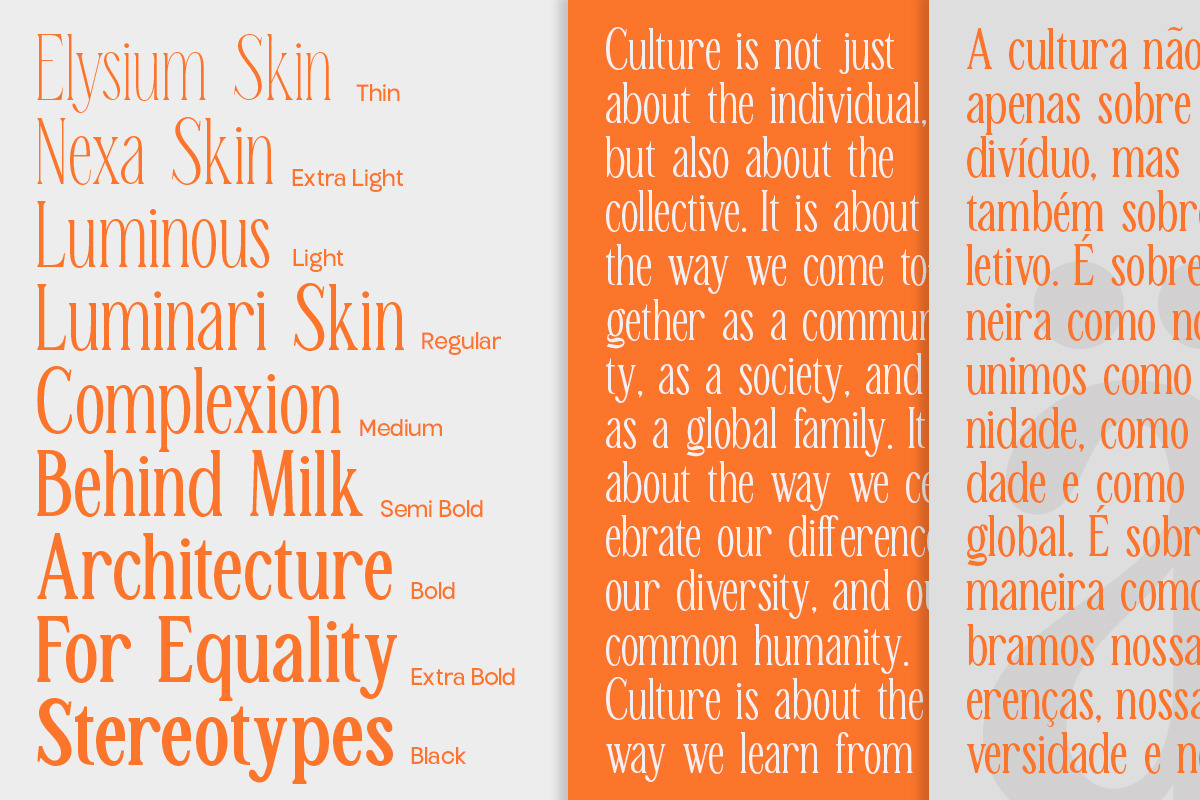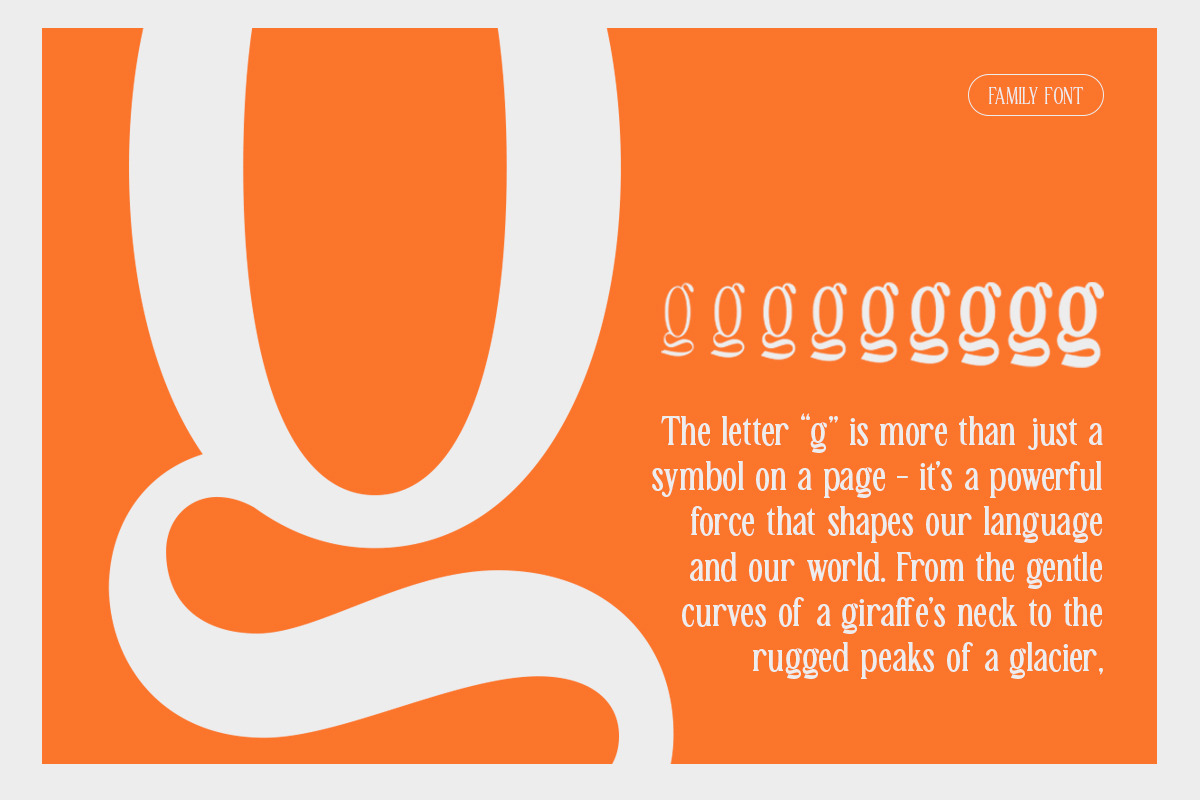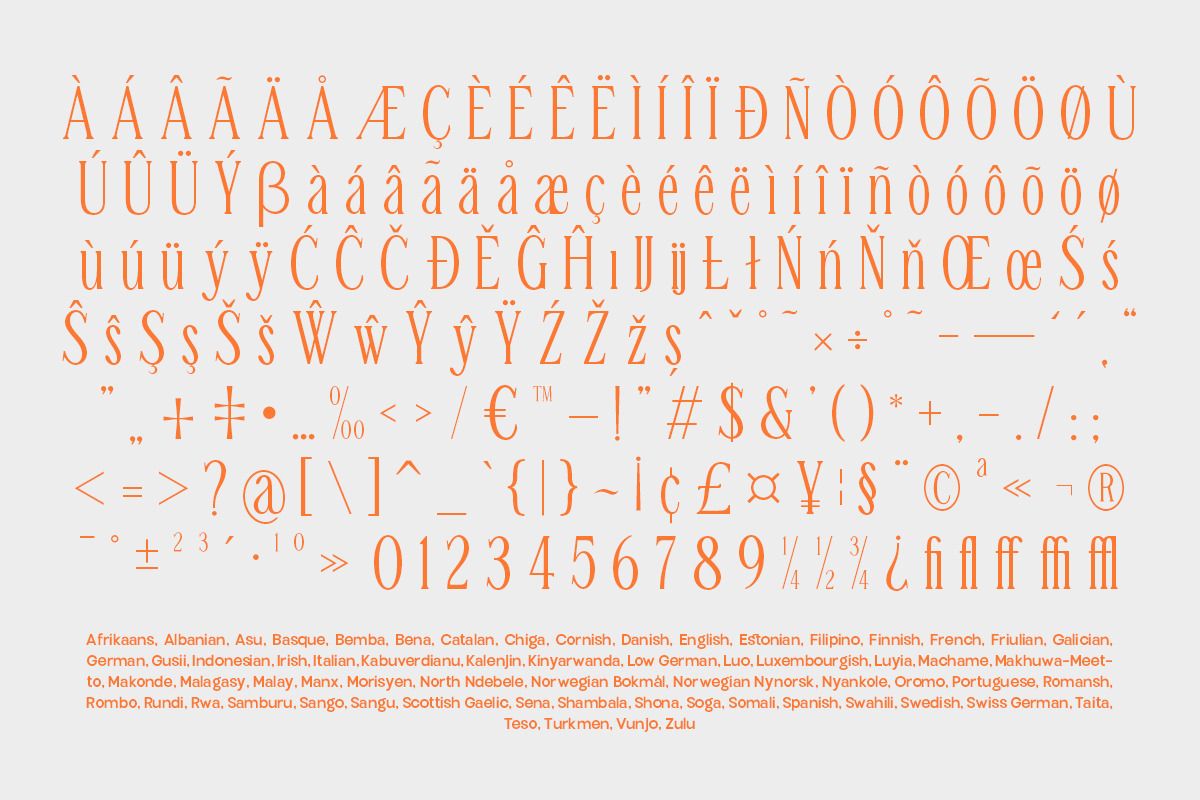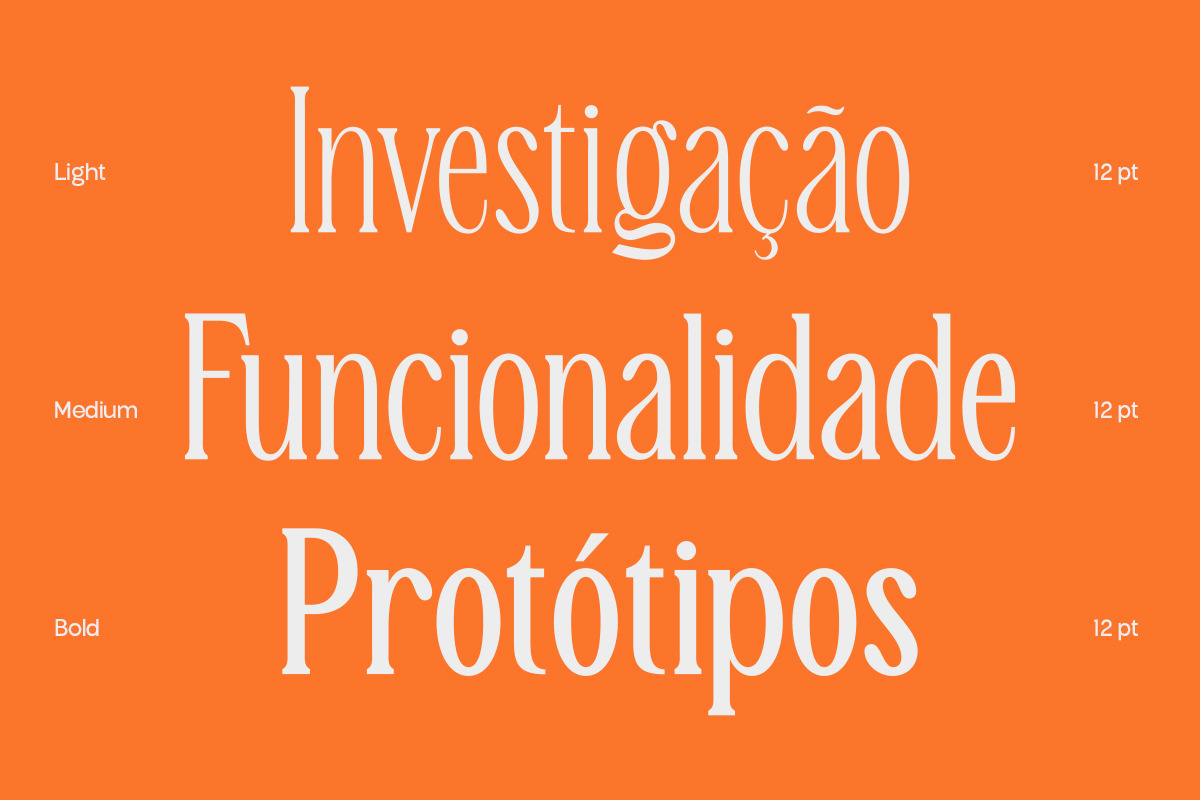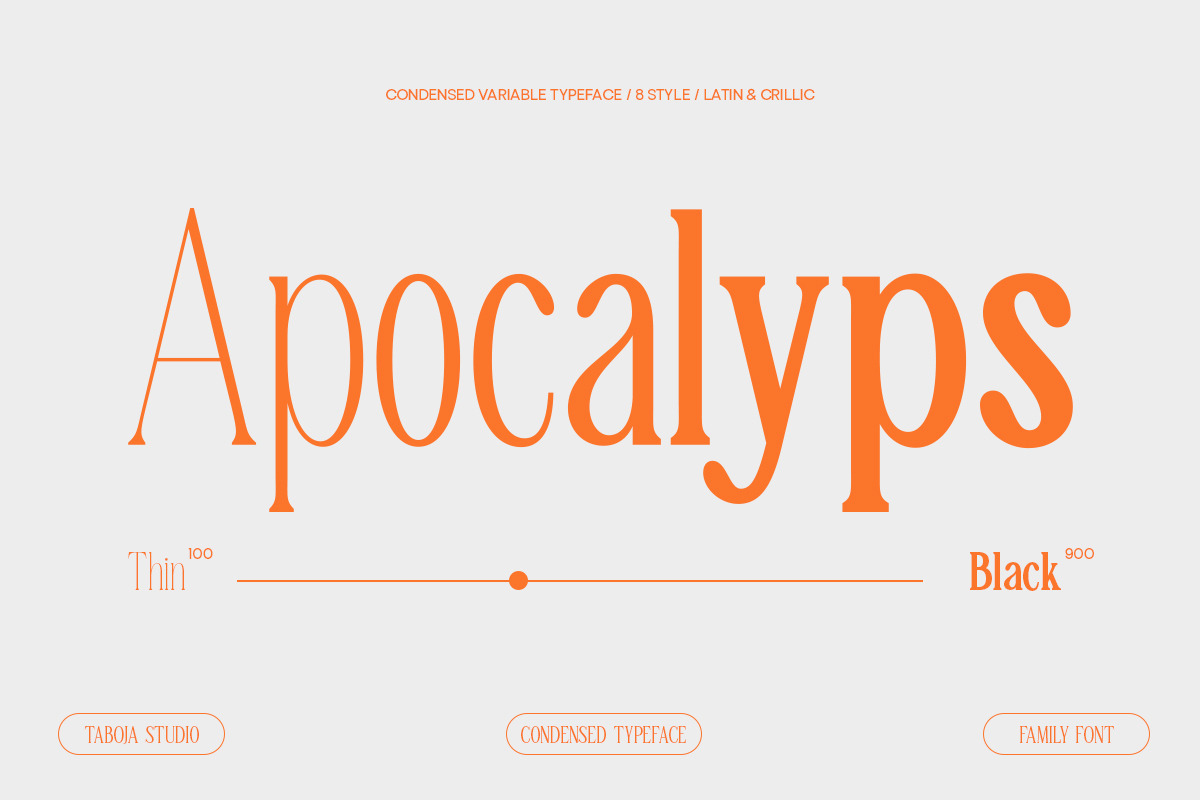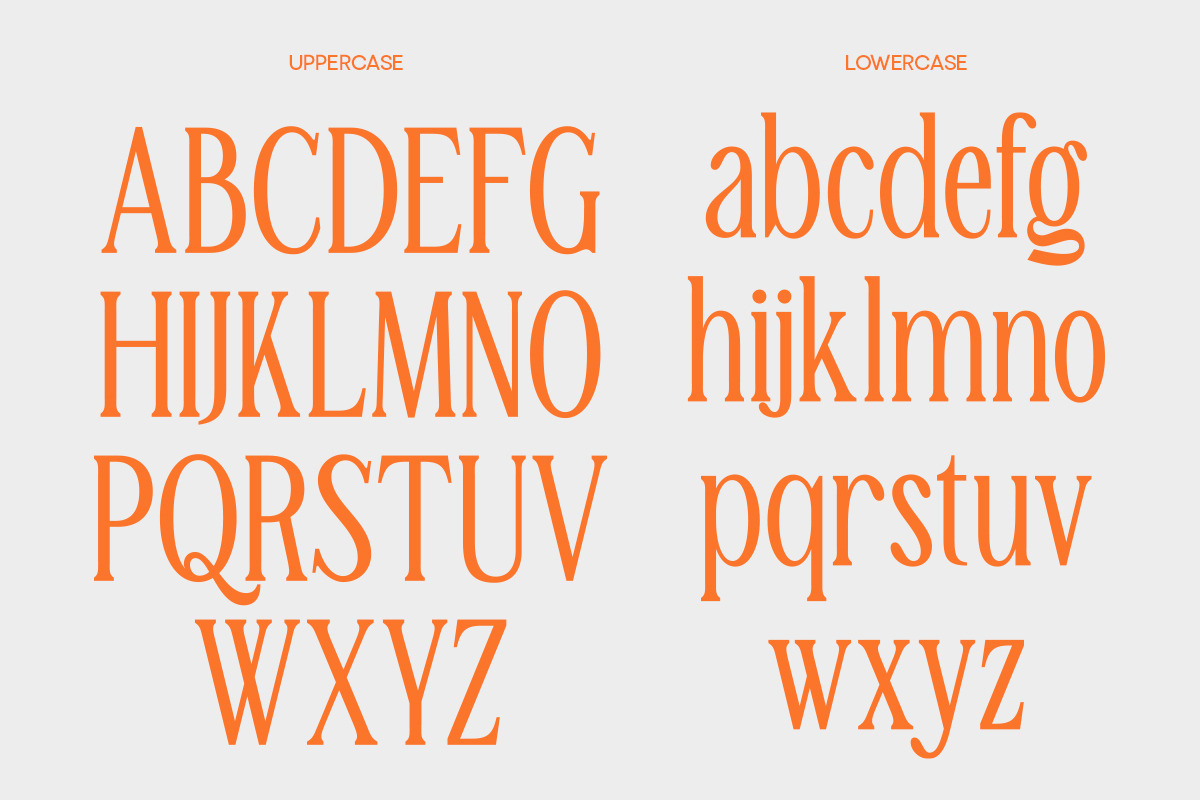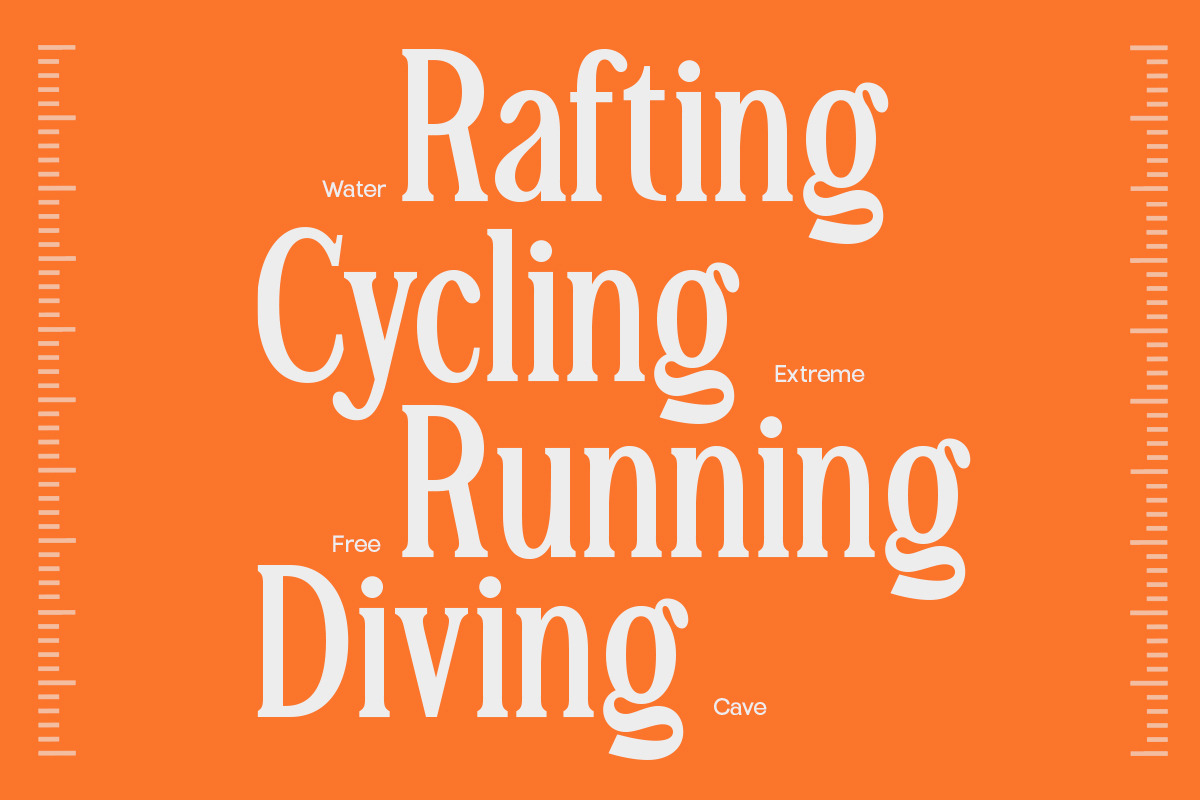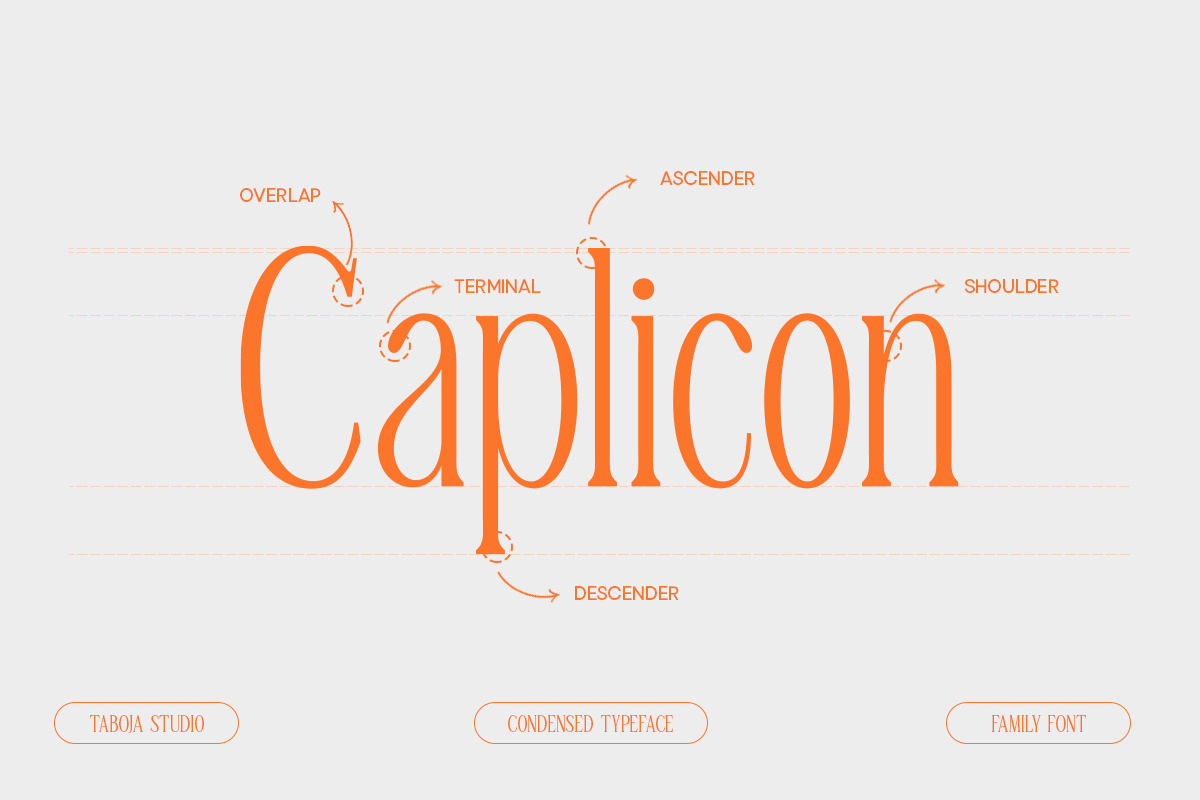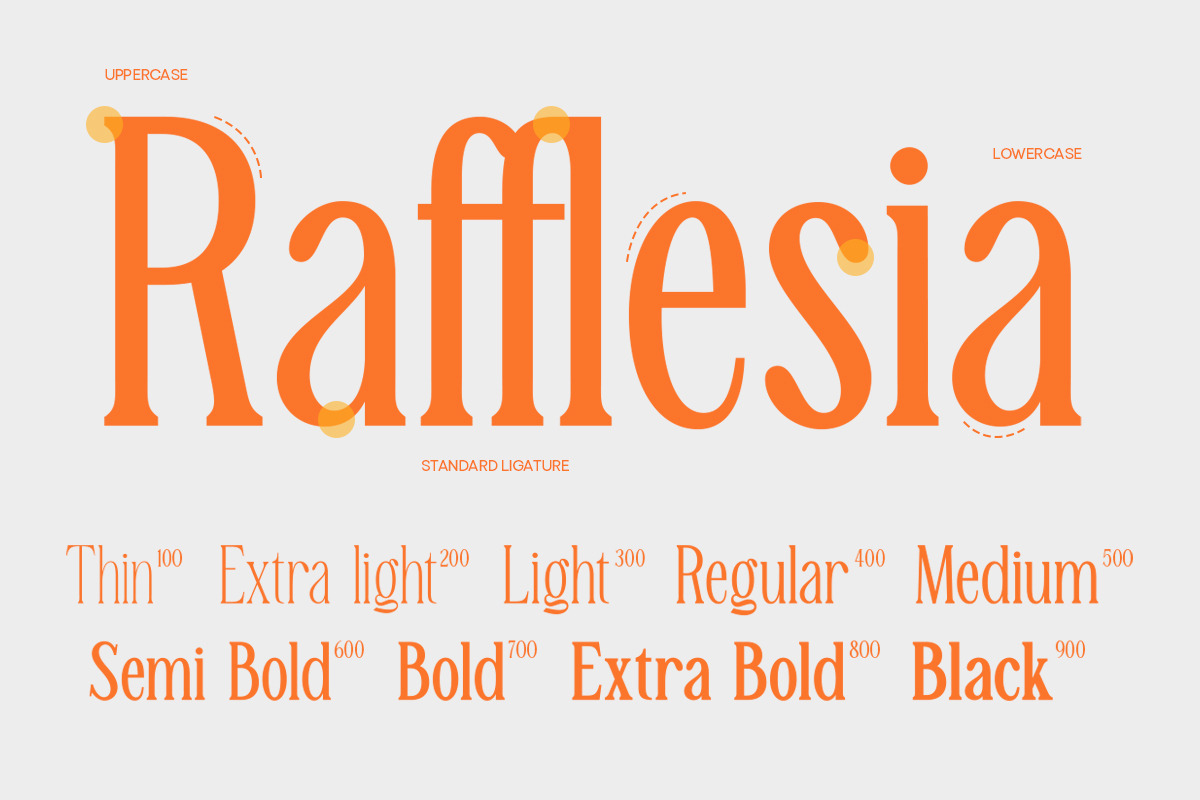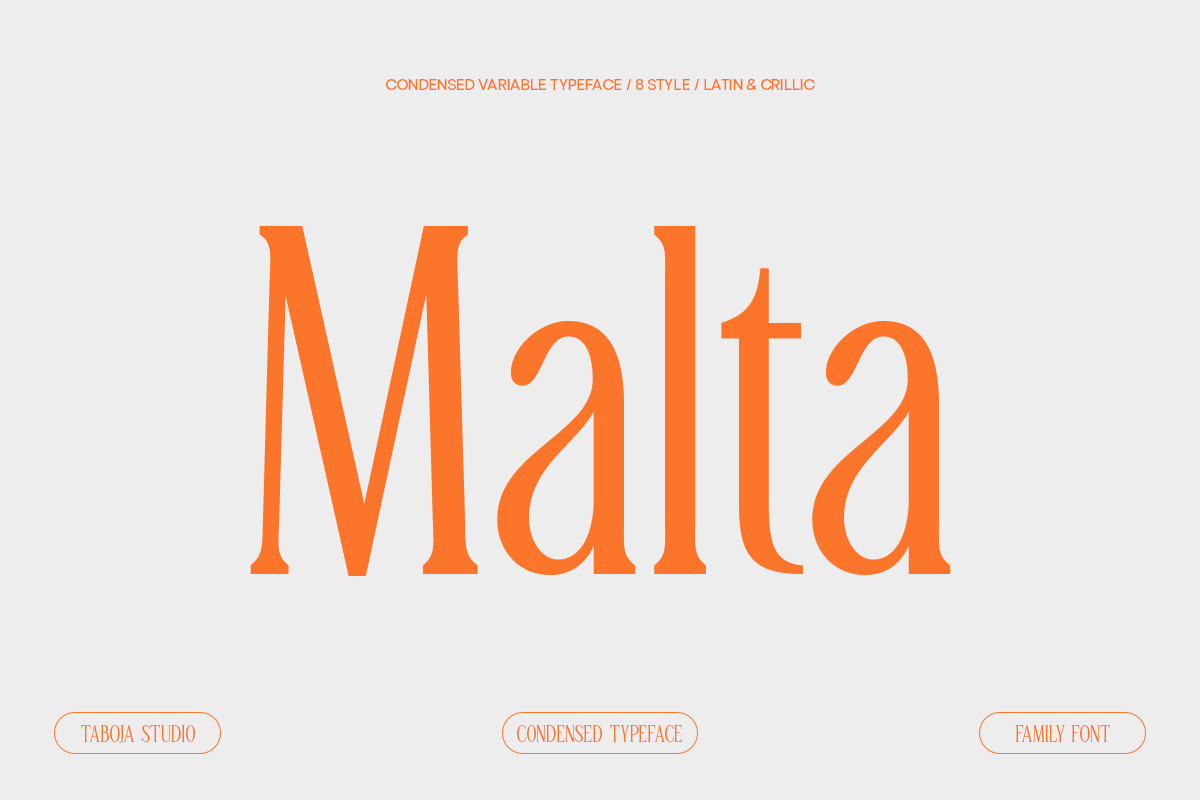
TBJ Malta 9-Font Family
TBJ Malta is a serif typeface designed with elegance and ease of use in mind. It offers a classic yet modern look, providing flexibility for various designs. Malta delivers captivating visuals and clarity in every letter.
TBJ Malta is a beautifully nostalgic 9-Font typeface that looks incredible in both large and small settings as a display and body text.
With intuitive design and balanced proportions, Malta is easy to use in different contexts, ensuring optimal reading comfort for both long and short texts. It combines traditional charm with a modern style,making it highly versatile for both print and digital media.
TBJ Malta is the choice for designers seeking a blend of classic elegance and ease of use in one package. With 9 variants from Light to Black, Malta offers maximum flexibility for all design needs.
- TBJ Malta Thin, Extra Light, Light, Regular, Medium, Bold, Extra Bold, Black